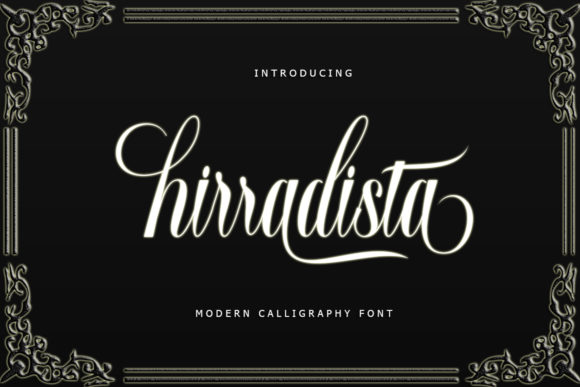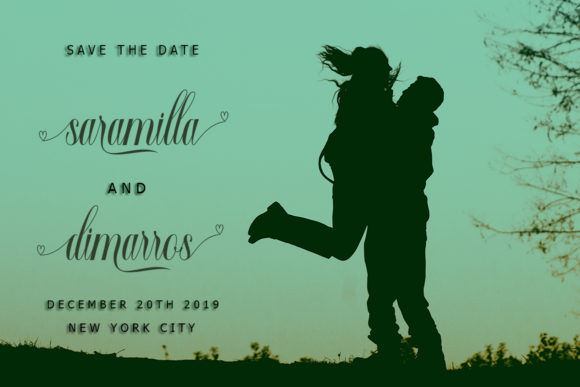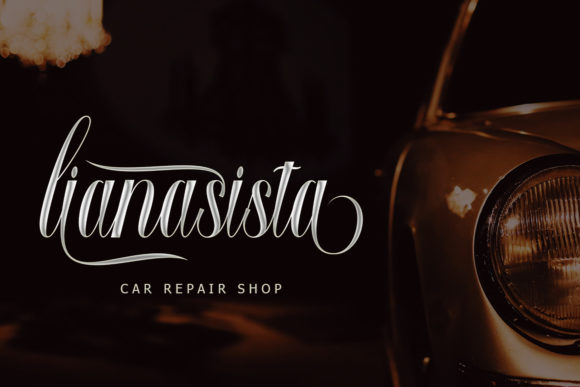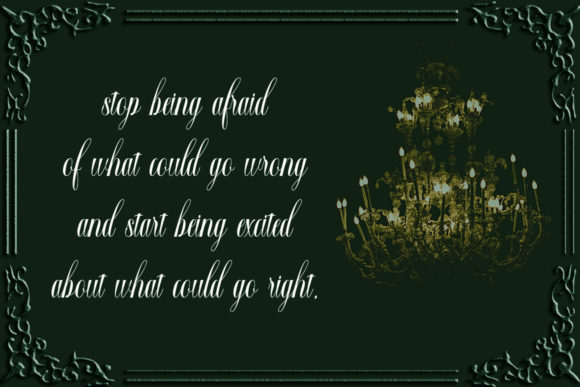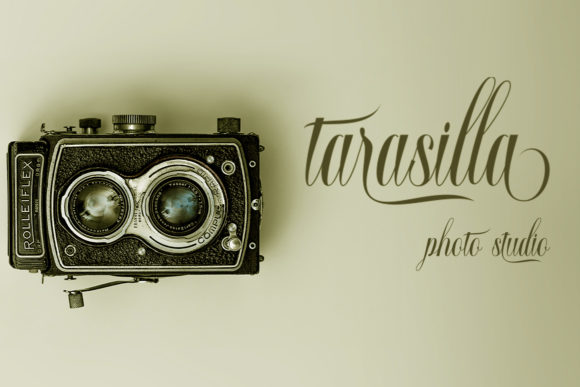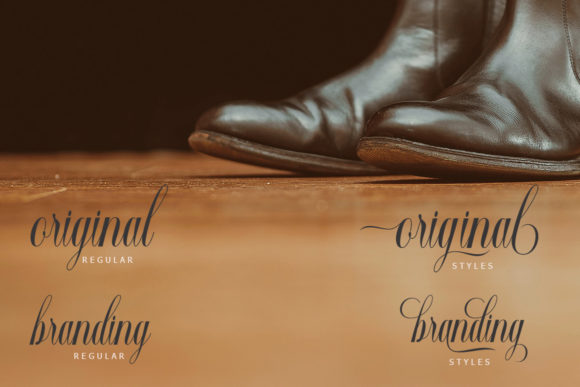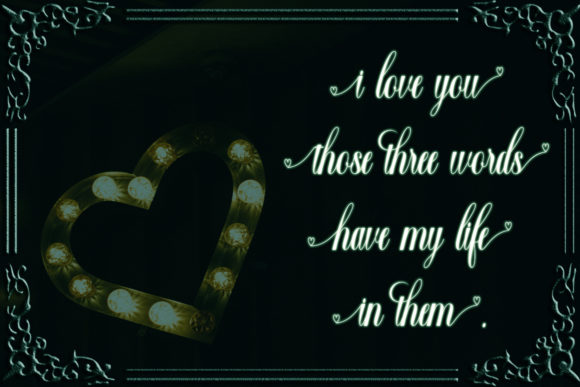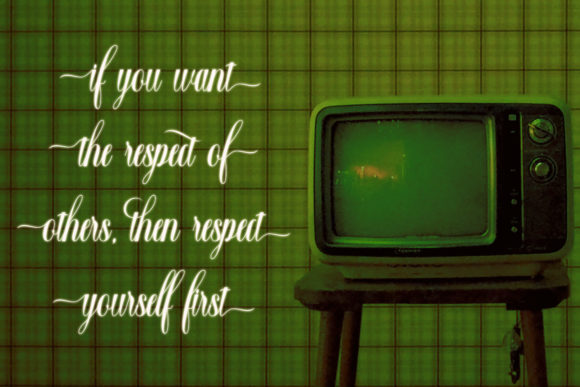
Hirradista Script Font
About Hirradista Script Font
The Hirradista is a modern calligraphy script. It has a casual yet pretty look which can be used for various purposes.